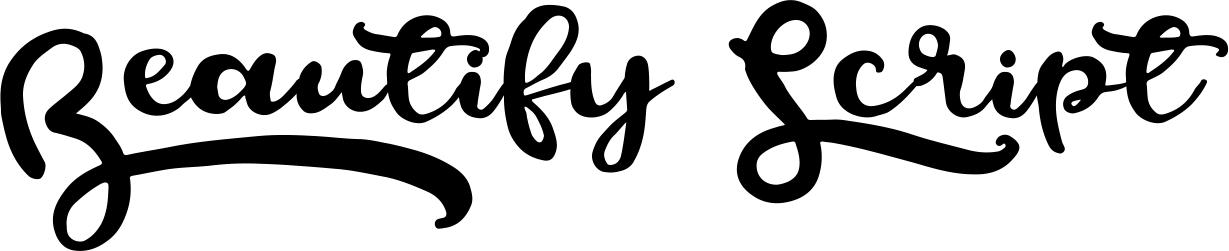
Beautify Script Font
Designed byYasir Ekinci
Here we present another beautiful summer font which like others that you have seen, or worked with this one has a cursive style too. Apart from all of that it has an old-school look as well and more importantly, the bold characters have swash tails.
Mixed-case alphabets, numbers, and punctuation are all included and keep in mind it can be difficult to read as they are slightly out of shape. Beautify Script is best for tattoos, books, and more.